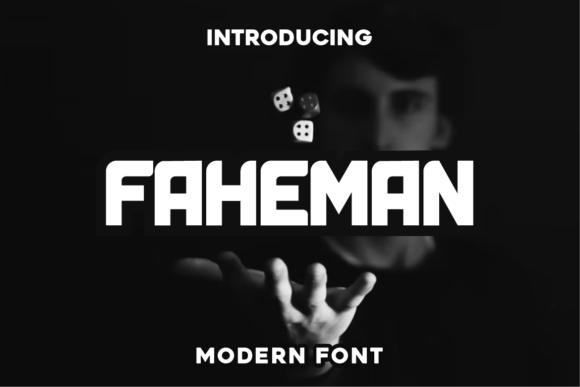
Faheman: A Bold and Stylish Font for Dynamic Branding
In the world of design, typography plays a crucial role in conveying a brand's identity and message. One font that stands out for its striking presence is Faheman. This bold, thick, and eye-catching display font is ideal for a variety of branding projects, from logos to t-shirt printing and sports designs. Its unique style makes it a go-to choice for designers looking to make a strong visual impact.
Faheman is more than just a font; it's a powerful tool that can elevate any design project. With its thick lettering and confident appearance, it exudes strength and energy, making it perfect for brands that want to stand out in a crowded market. Whether you're creating a logo for a new business or designing a t-shirt for a sports team, Faheman offers a versatile and stylish solution.
Challenges in Branding and How Faheman Can Help
Designers often face challenges when trying to create a strong brand identity. One common issue is finding a font that is both visually appealing and functional across different mediums. Many fonts may look great on a screen but fail to translate well to print or other formats. This is where Faheman shines. Its bold and thick characteristics ensure that it remains legible and impactful in various applications.
Another challenge is maintaining consistency across different branding materials. A font that works well for a logo might not be suitable for a website or social media. Faheman addresses this by offering a cohesive look that can be used across multiple platforms without losing its visual appeal. This consistency helps reinforce brand recognition and creates a unified identity.
Practical Applications of Faheman
The versatility of Faheman makes it suitable for a wide range of applications. For instance, in logo design, it can help convey a sense of power and confidence. Brands that want to project strength and reliability often choose Faheman to reflect their values. Its thick strokes and bold structure make it an excellent choice for businesses in industries such as sports, fitness, and automotive.
In addition to logos, Faheman is also popular for t-shirt printing. Whether it's for a music band, a sports team, or a casual fashion line, this font adds a dynamic and modern feel to clothing designs. Its large and clear letters ensure that the message is easily readable, even from a distance. This makes it ideal for promotional items and merchandise that need to grab attention quickly.
For sports designs, Faheman can enhance the visual appeal of team uniforms, banners, and event signage. Its bold nature complements the energetic and competitive spirit of sports, making it a popular choice among athletes and coaches. The font's ability to stand out in different environments ensures that it remains a key element in any sports branding strategy.
Exploring Different Approaches with Faheman
Users may approach the use of Faheman differently based on their specific needs and goals. For example, a graphic designer working on a corporate logo might focus on how the font can communicate professionalism and authority. On the other hand, a t-shirt designer might prioritize how Faheman can add a trendy and edgy look to their products.
Some users may also experiment with combining Faheman with other fonts to create a balanced and visually appealing design. While Faheman is a strong and dominant font, it can be paired with simpler typefaces to achieve a harmonious look. This flexibility allows designers to tailor their work to specific projects while still leveraging the impact of Faheman.
Recommendations and Useful Considerations
When using Faheman, it's important to consider the context in which it will be applied. For digital projects, ensuring that the font is properly embedded or licensed is essential to maintain its quality across different devices and platforms. Print projects may require additional considerations, such as resolution and color accuracy, to ensure that the font looks its best on physical materials.
Additionally, testing Faheman in different sizes and layouts can help determine its effectiveness in various scenarios. What works well for a large banner may not be suitable for a small label. Experimenting with different applications can help users find the most effective way to incorporate Faheman into their designs.
For those new to Faheman, starting with a few sample projects can provide valuable insights into its strengths and limitations. This hands-on approach allows users to develop a better understanding of how the font can be used to achieve their design goals. As they gain experience, they can explore more advanced techniques and creative combinations.